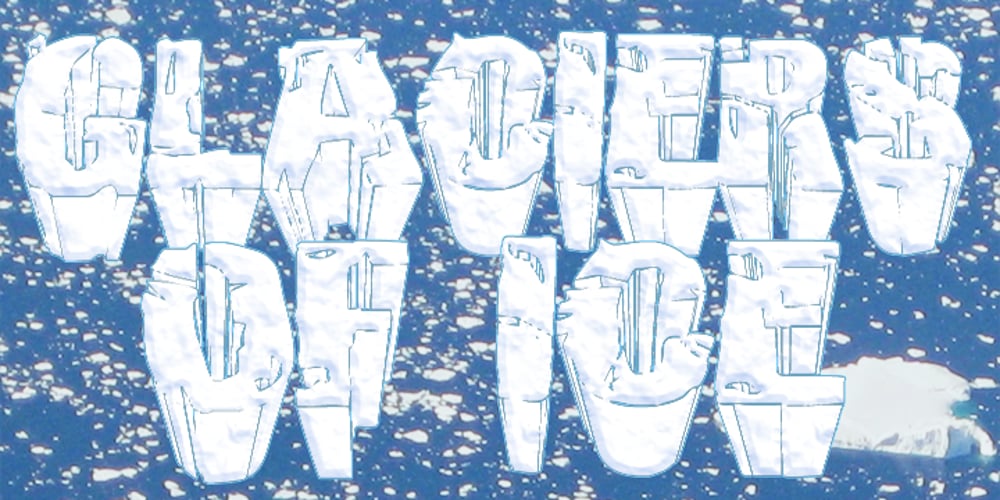
Megalithic Font Family was designed by published by IC Fonts. Megalithic contains 2 styles and family package options. 3D Chiseled Rock type font based on the ideas of Ancient Megalithic Structure and Stone Masonry. This Font comes in a Solid Bolder type or Outlined Type for that Chiseled Ice Block Look. Based on Hulkbusters by Dan Zadorozny.